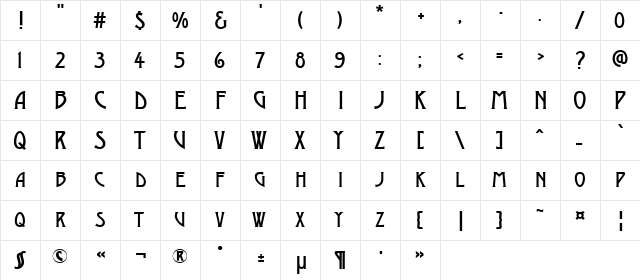
a_ModernoCaps Regular
Design Context for a_ModernoCaps Typeface
a_ModernoCaps is a composed and adaptable typeface that performs quietly and consistently across a wide range of design contexts.